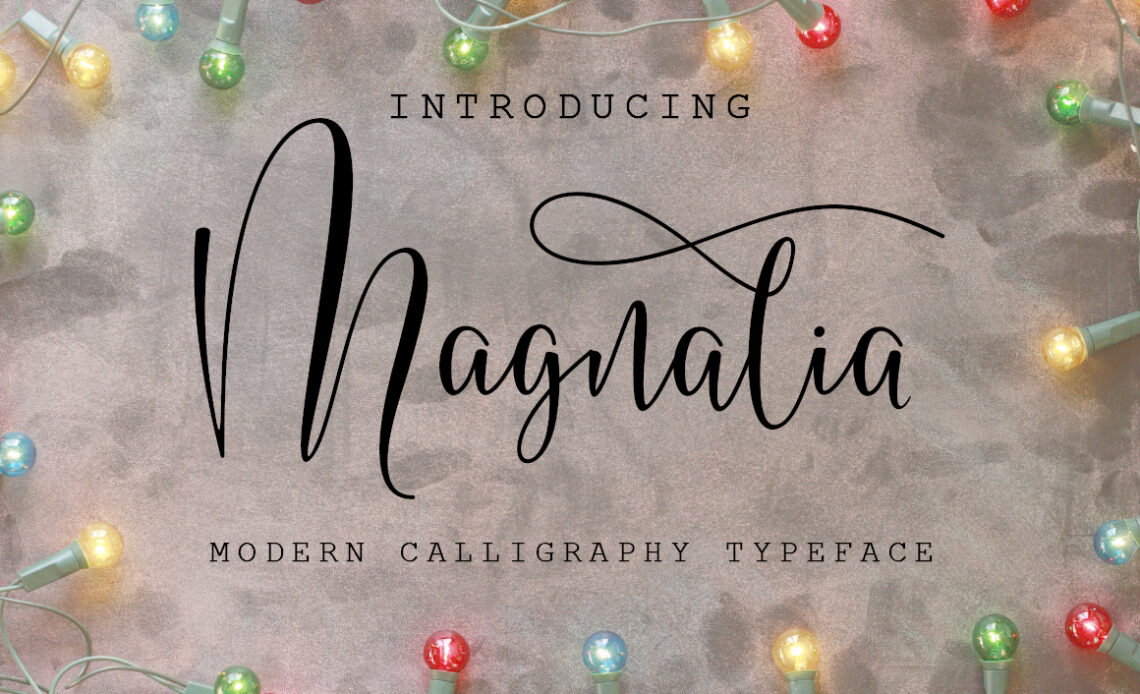
Step into the exquisite world of Magnalia Font, a captivating script font designed by Khalidin.Ink, exclusively available in our collection. This extraordinary font echoes the gracefulness and elegance of handwritten calligraphy, embodying the timeless charm of a bygone era.
With its elaborate swirls, delicate flourishes, and graceful curves, Magnalia Font stands out as a true masterpiece in the realm of digital lettering. Its intricate details and stunning aesthetics make it an ideal choice for designers, artists, and creative entrepreneurs seeking to add a touch of sophistication and allure to their projects.
Unleash your creativity and let your imagination soar as you explore the boundless possibilities of Magnalia Font. Whether you're crafting logos, invitations, social media posts, website designs, or any other visual masterpiece, this font will effortlessly transform your words into works of art.
Immerse yourself in the enchanting aura of Magnalia Font and allow its captivating allure to elevate your designs to new heights. Its versatile nature allows for seamless integration into various projects, exuding an air of sophistication and elegance wherever it's used.
Embrace the essence of beauty and finesse with Magnalia Font. Its carefully crafted characters dance across the screen, inviting you to explore a world where creativity knows no bounds. Let your imagination flourish as you witness the seamless blend of classic elegance and modern aesthetics.
Discover the magic of Magnalia Font today and elevate your creative endeavors to unparalleled heights. Experience the joy of transforming ordinary words into breathtaking visual masterpieces, leaving a lasting impression on your audience. Immerse yourself in the world of Magnalia Font and unlock a new realm of creative possibilities.